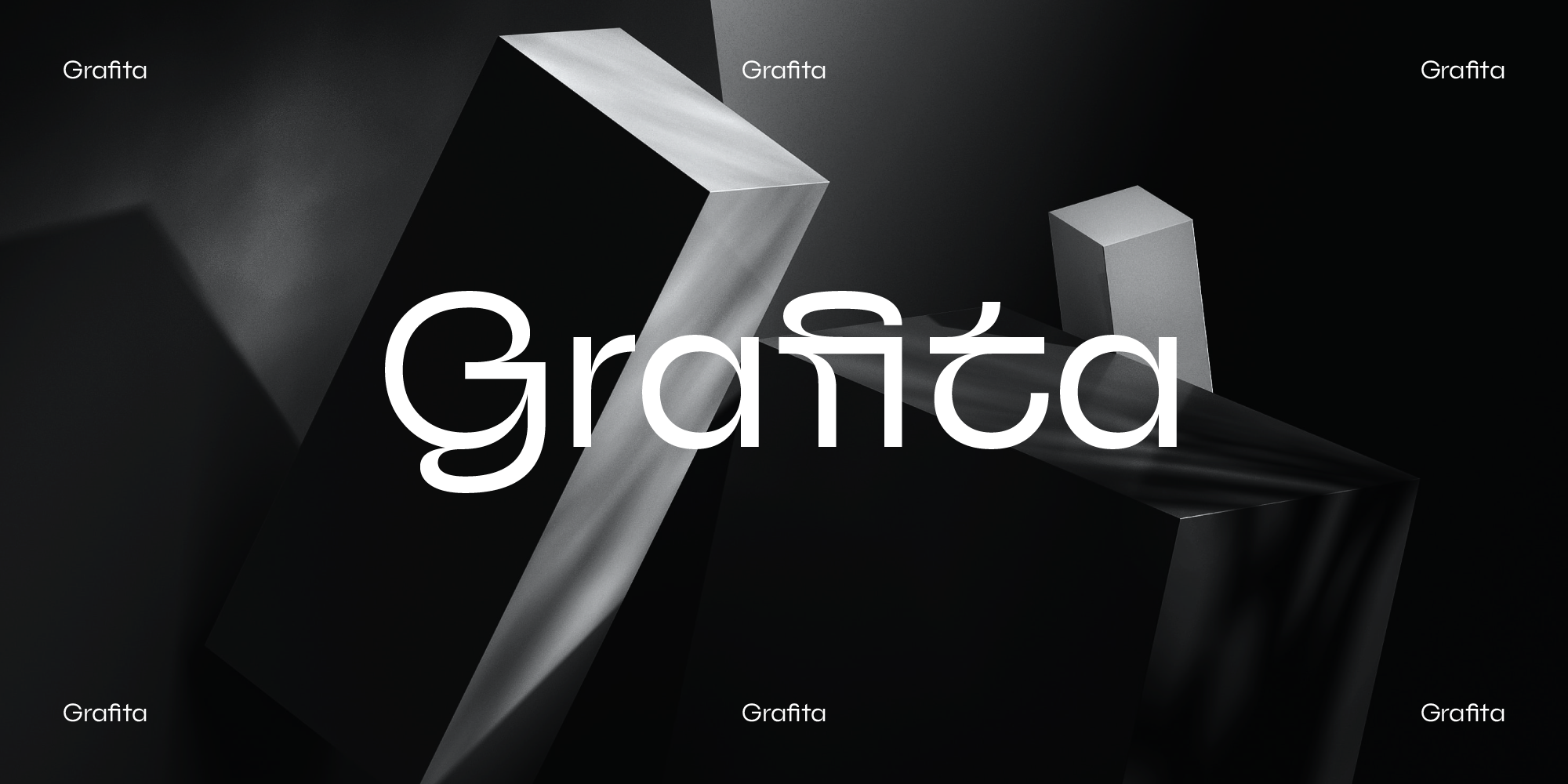
Grafita Font Free Download is an exceptional typeface that lends itself to a myriad of modern design applications. Imagine it enhancing streetwear brand logos, dynamic music album covers, cutting-edge tech advertisements, or impactful sports branding. Its bold and distinctive character also makes it perfectly suited for energetic event promotions, innovative gaming interfaces, and striking poster designs. Whether you're aiming for a raw, urban feel or a polished, contemporary edge, Grafita Font offers the stylistic power to transform your creative projects.
What makes Grafita Font truly exciting is its raw energy and undeniable presence. It captures a modern, gritty aesthetic while maintaining excellent readability, making it perfect for designs that need to stand out and make a statement. This isn't just another display font; it's a meticulously crafted typeface that brings a unique blend of urban sophistication and bold impact to any text. Designers will love its strong visual appeal and how it can instantly infuse a design with a sense of dynamism and modern flair, drawing the eye and commanding attention.
The Grafita Font family, while often focused on its unique display qualities, typically provides a range of weights to maximize its versatility. You might find weights such as Regular, Bold, and sometimes even an Outline or Distressed version, allowing for diverse visual effects. This variety within the family enables you to create compelling typographic compositions, giving you the flexibility to choose the perfect weight to convey the desired intensity and style for your project.